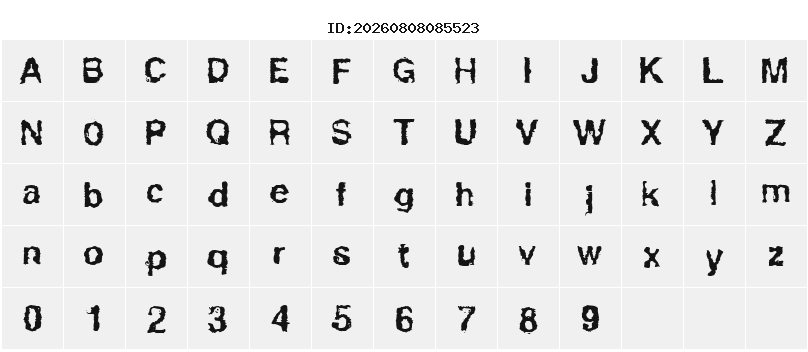
Powerwalker Preview
• Font Name: Powerwalker
• Full Font Name: Powerwalker
About Powerwalker.ttf
Powerwalker.ttf is a modern, elegant sans-serif font designed for ultimate readability and visual harmony. Perfect for branding, headlines, web design, and print materials.